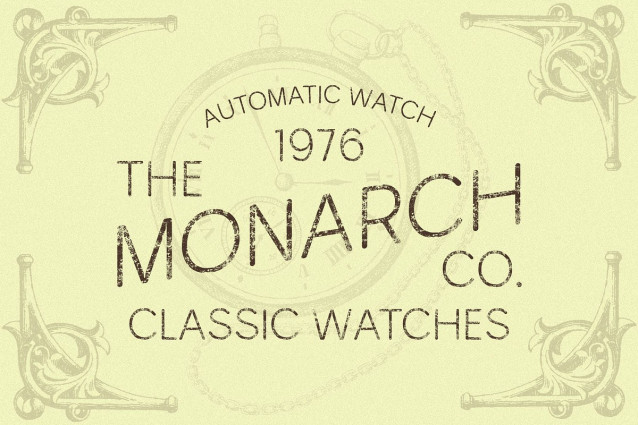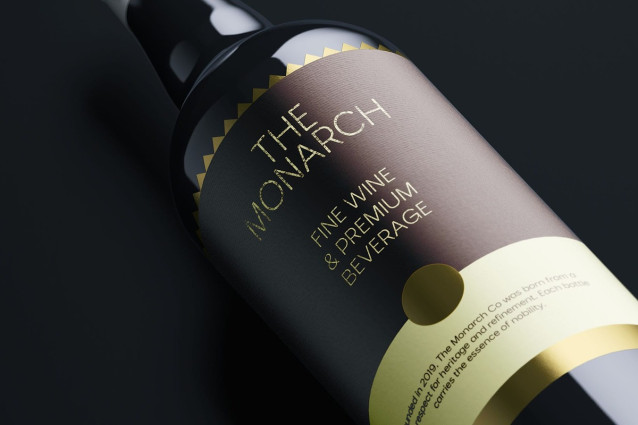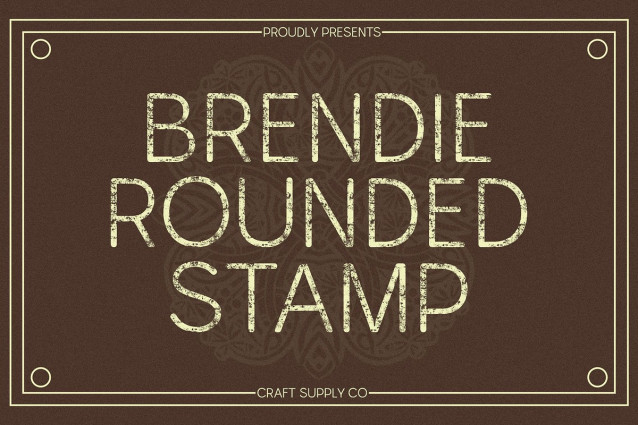
Brendie Rounded Stamp Font
Brendie Rounded Stamp Font – Modern Simplicity with Vintage Expression Rounded Shapes with Contemporary Balance This is a modern grotesque sans serif that fuses smooth, rounded forms with clean, contemporary structure. Each letter is designed with careful precision, achieving the perfect balance between geometric simplicity and soft approachability. This blend of modernity and warmth gives the font a versatile charm that stands out in both digital and print designs.
Vintage Texture for Authentic Character The subtle stamp effect introduces a handcrafted, vintage touch that adds texture and depth to its otherwise modern form. This unique detail infuses this font with personality turning a minimalist font into something expressive, nostalgic, and artfully imperfect. The combination of smooth curves and rough texture creates a beautiful contrast that feels both refined and organic.
Ideal for Branding and Editorial Projects Perfect for editorials, posters, and branding, this font enhances visual storytelling with its sophisticated yet human touch. It works beautifully in logos, packaging, and lifestyle designs, where a modern aesthetic meets emotional authenticity.
A Fusion of Modern Minimalism and Vintage Soul This font captures the essence of timeless design where clean modernity meets handcrafted charm. With its rounded structure and stamped texture, it speaks of creativity, warmth, and originality. Use it to elevate your designs with a refined yet expressive tone that feels both current and nostalgic